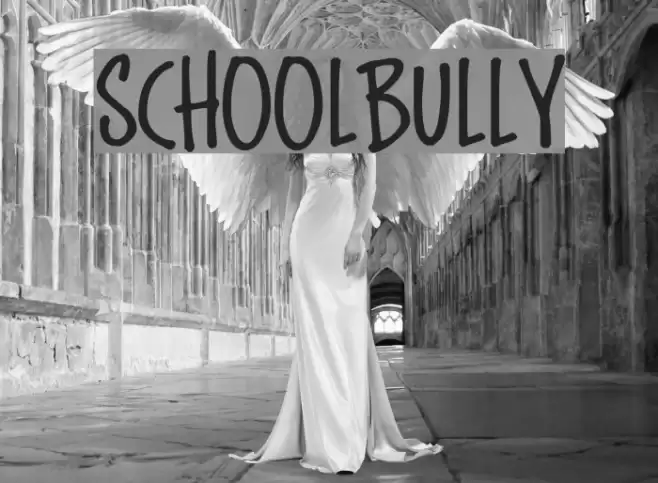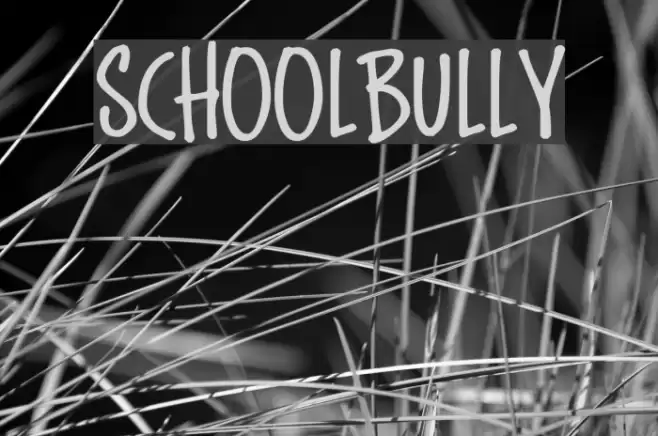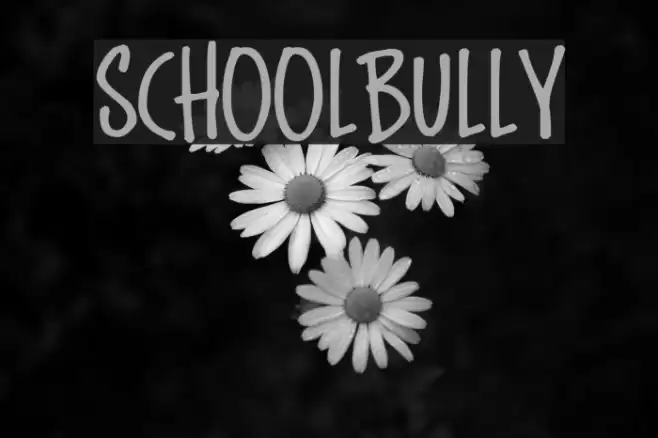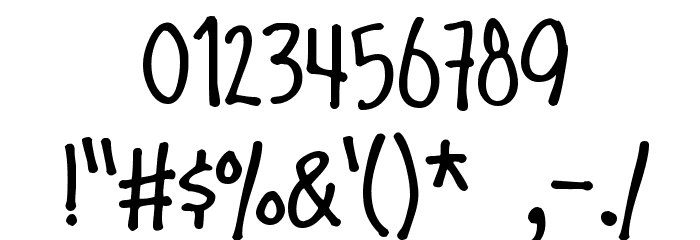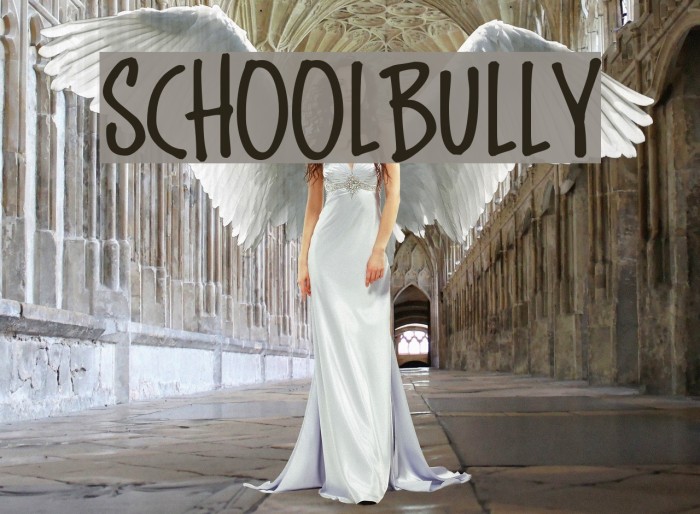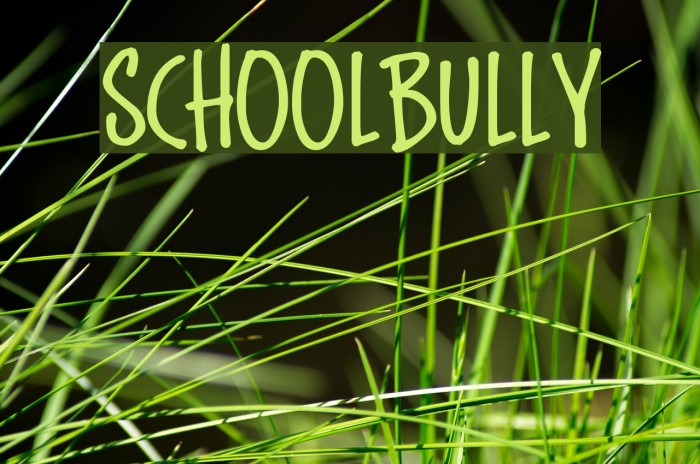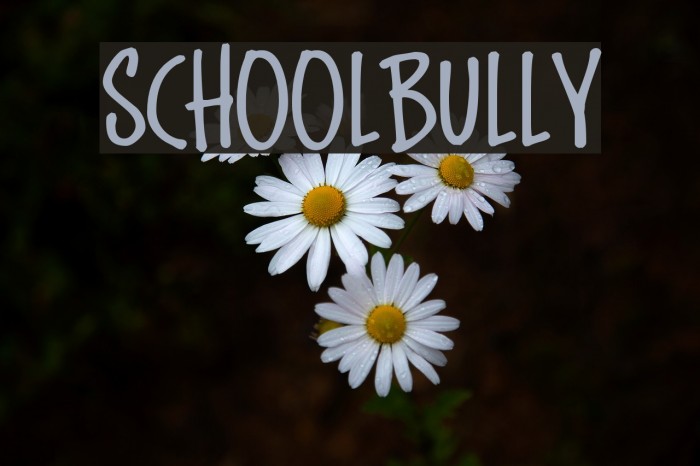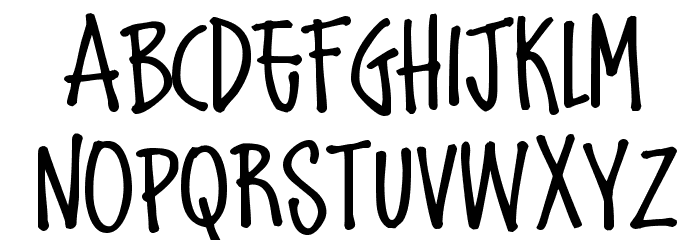
Schoolbully Font
Schoolbully Description
This playful and bold font features a handwritten style that exudes a casual and friendly vibe. The characters are slightly irregular, adding to the informal and approachable feel. The uppercase and lowercase letters maintain a consistent stroke width, giving the font a cohesive look. The numbers and special characters are designed to match the overall style, making it versatile for various uses. The font's unique charm lies in its imperfect lines and playful curves, making it ideal for projects that require a personal touch.
A playful, handwritten font with a casual and friendly vibe from Capitals fonts.
- Proposed Projects: Ideal for children's books, greeting cards, posters, and informal branding.
- Overall Style: Casual, Playful
- Use Case: Headlines, Informal text, Branding